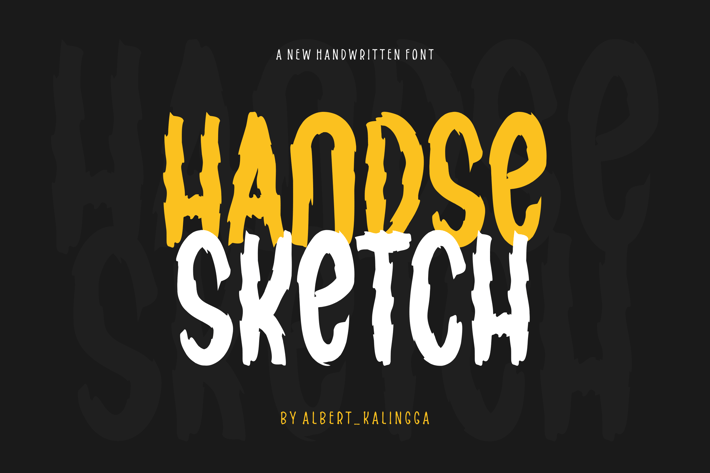
Handse Sketch Font
albert_kalingga
Introducing our new product Handse Sketch Font - Modern Font
Handse Sketch Font - Modern Font is a bold and authentic display font. The font is suitable for any branding project like logo, esport, and many more. outstanding in a wide range of contexts.